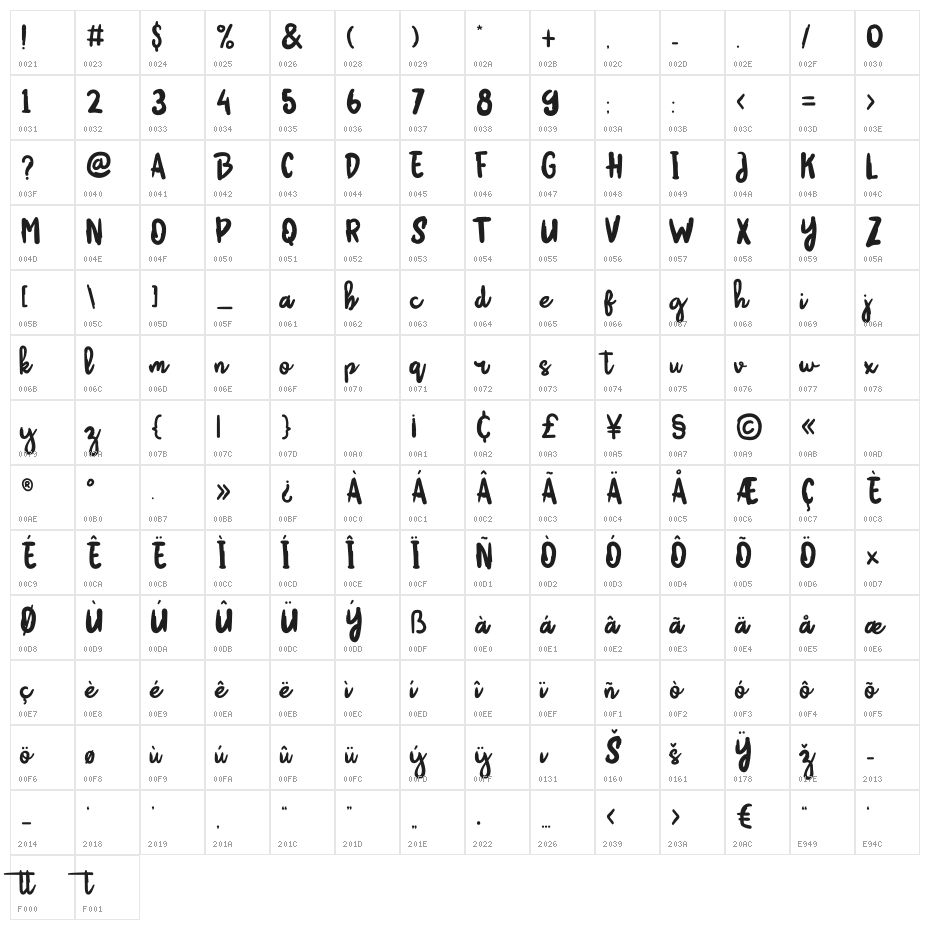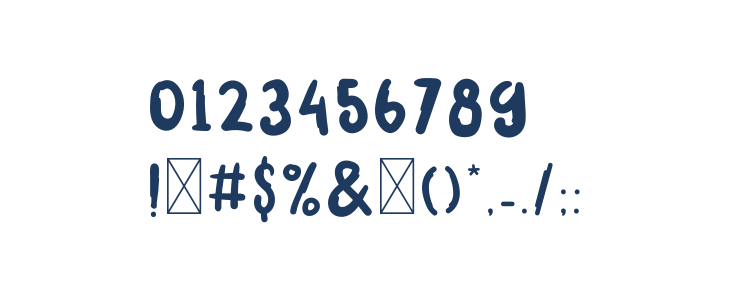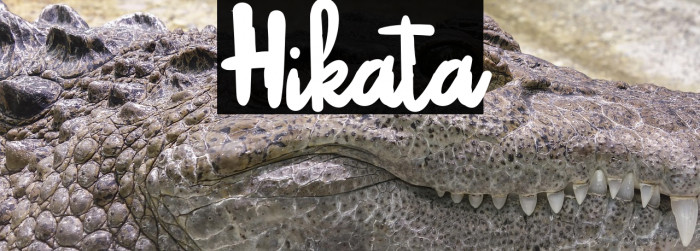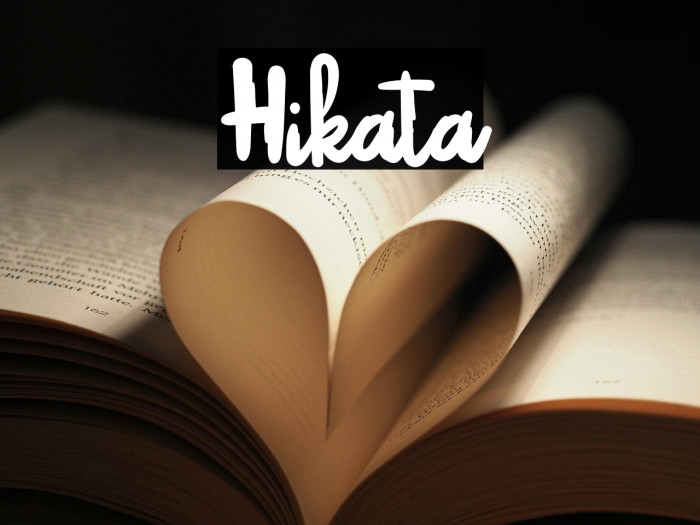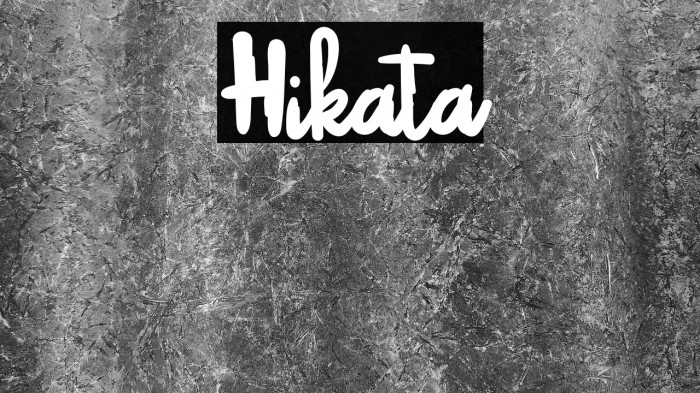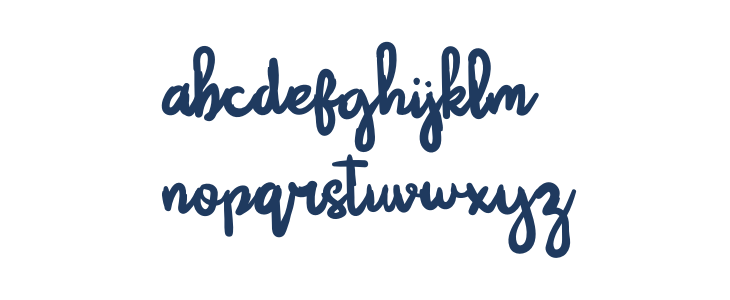
Hikata Font
Hikata Description
This font features a bold and playful handwritten style with a casual and friendly appearance. The letters are thick and rounded, giving them a strong presence while maintaining a whimsical charm. The uppercase letters are bold and slightly irregular, adding to the font's informal aesthetic. The lowercase letters are more fluid and connected, resembling natural handwriting. The numbers and special characters are consistent with the overall style, maintaining the same bold and playful characteristics. This font is ideal for projects that require a personal touch or a fun, approachable vibe.
| Overall Style | Playful, Casual |
| Proposed Projects | Great for greeting cards, children's books, playful branding, and social media graphics. |